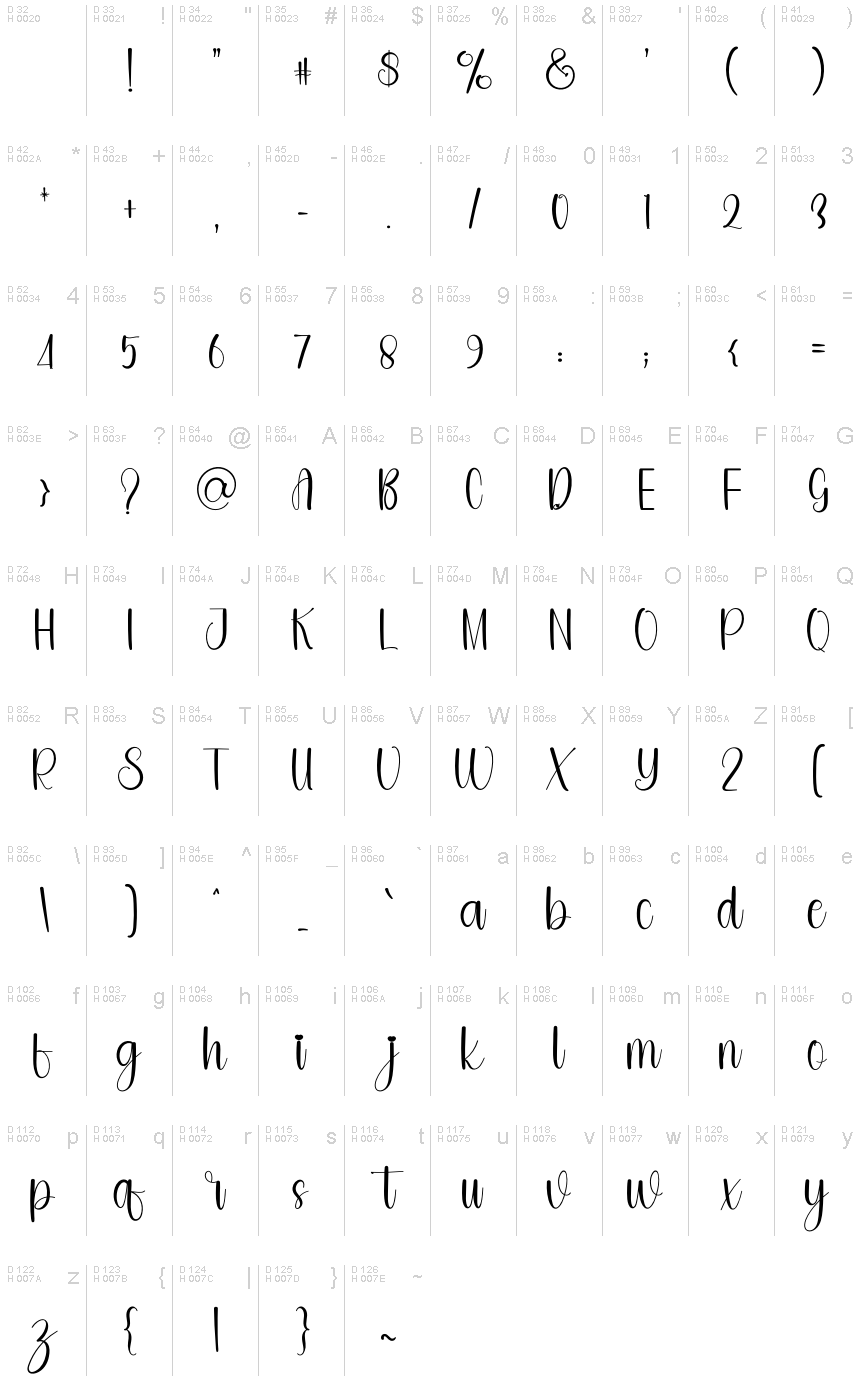
Stale, a captivating handwritten font created by FreshtypeINK, exudes a charming, organic aesthetic that evokes a sense of warmth and authenticity. This expressive typeface boasts fluid, natural strokes and subtle variations, lending an artisanal quality to any design. Its playful yet refined character effortlessly bridges the gap between casual and sophisticated, making it a versatile choice for a wide range of applications.
Stale's unique personality lends itself beautifully to branding, packaging, and editorial design projects, where its handcrafted appearance can elevate the visual identity and create a genuine, personalized connection with the audience. Its adaptability also extends to digital interfaces, social media content, and even wedding stationery, where its distinctive flair can add a touch of elegance and personality.